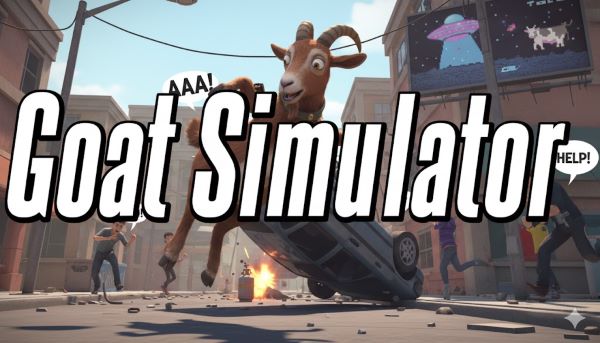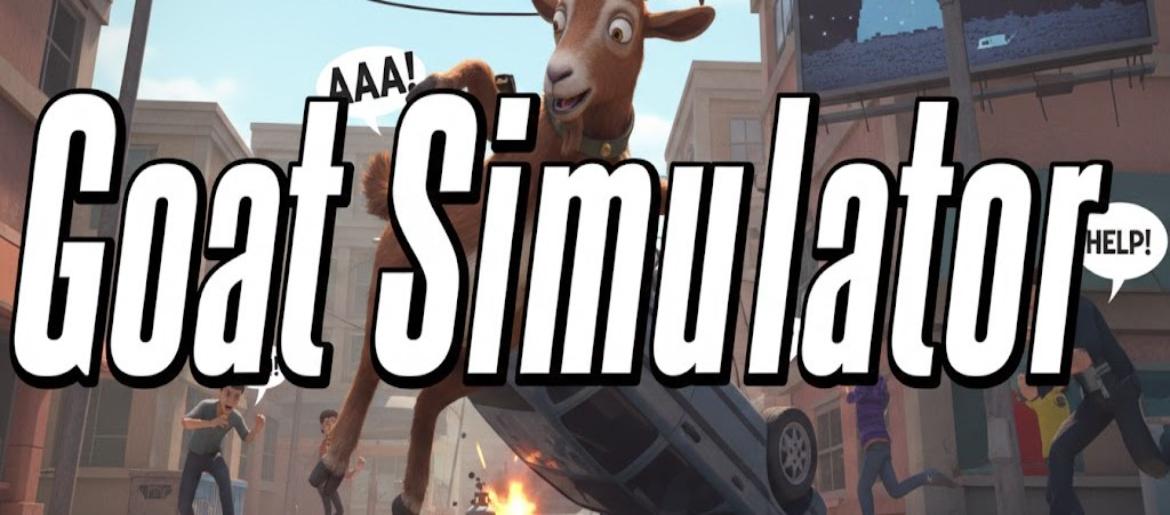
Goat Simulator Font
Goat Simulator broke conventional gaming boundaries with its hilariously chaotic physics-based gameplay and absurd humor, perfectly matched by typography that embraces the game’s playful irreverence. The font featured in this cult classic delivers quirky personality and lighthearted energy that captures the franchise’s unapologetic silliness and comedic spirit. Its distinctive style excels in humorous gaming content, playful branding projects, comedic promotional materials, and casual entertainment designs.
Whether you’re creating meme-worthy graphics, designing fun gaming interfaces, or developing projects demanding whimsical charm and unconventional character, this typeface embodies that unmistakable Goat Simulator mayhem. Unlock more creative possibilities with our extensive library of free fonts perfectly suited for any project.